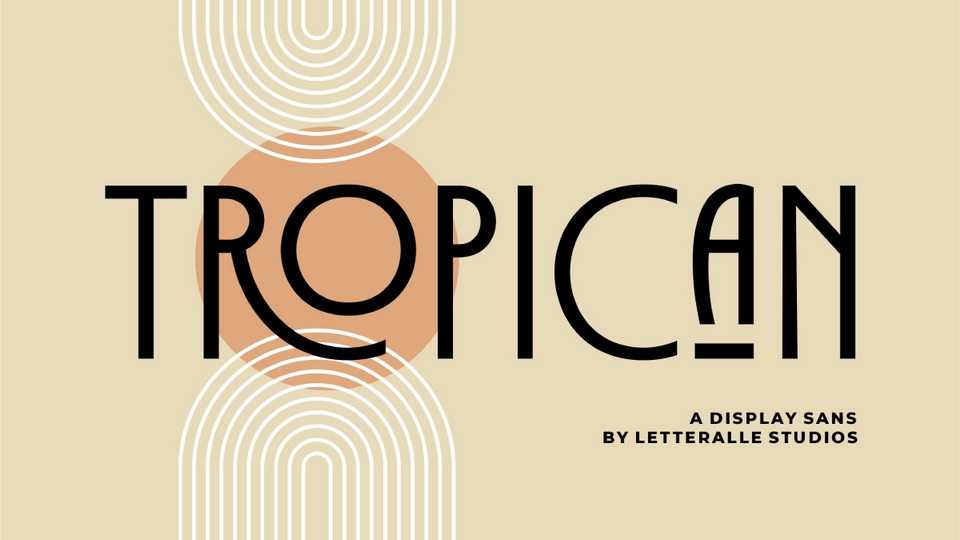
Download Tropican is a display sans serif font with a vintage and minimal style. Tropican is a versatile font, perfect for display, editorial projects, logo design, vintage posters, magazine headers and more.
Designer: Letteralle Studio